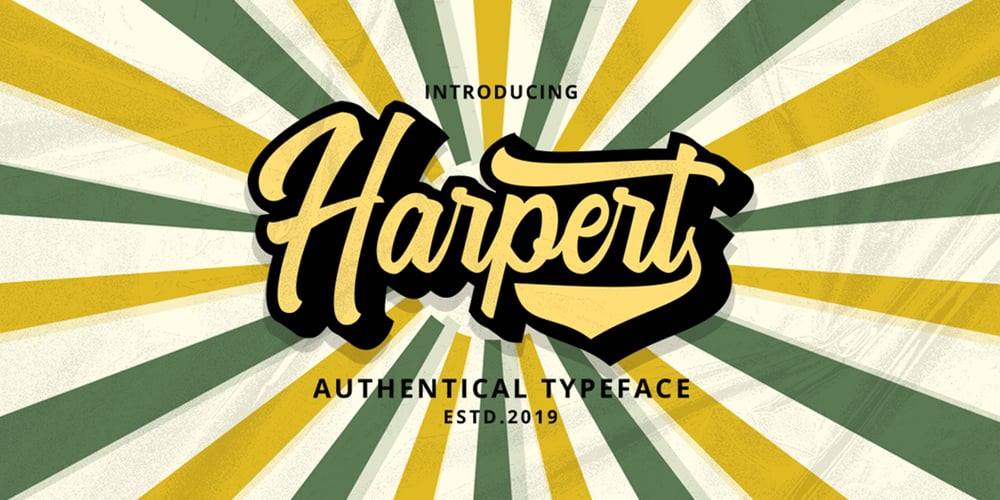
Harpert Script Font Family was designed by Ferdiansyah and published by ijemrockart. Harpert Script contains 2 styles and family package options. Harpert Script is inspired by retro design and hand lettering styles. I’ve made every single curve to have a ton of personality. I hope this can inspire you in your work! It contains a very bouncy baseline. Ideal for logos, handwritten quotes, product packaging, header, poster, merchandise, social media & greeting cards. Features: – Basic Latin A-Z and a-z – Numbers – Symbols – Stylistic Set – Ligature – PUA Encode – Multilanguage Support To enable the OpenType Stylistic alternates, you need a program that supports OpenType features such as Adobe Illustrator CS, Adobe Indesign & CorelDraw X6-X7. There are additional ways to access alternates, using Character Map (Windows), Nexus Font (Windows), Font Book (Mac) or a software program such as PopChar (for Windows and Mac). If you have any questions, don’t hesitate to contact me by email ijemrealmad54@gmail.com 🙂